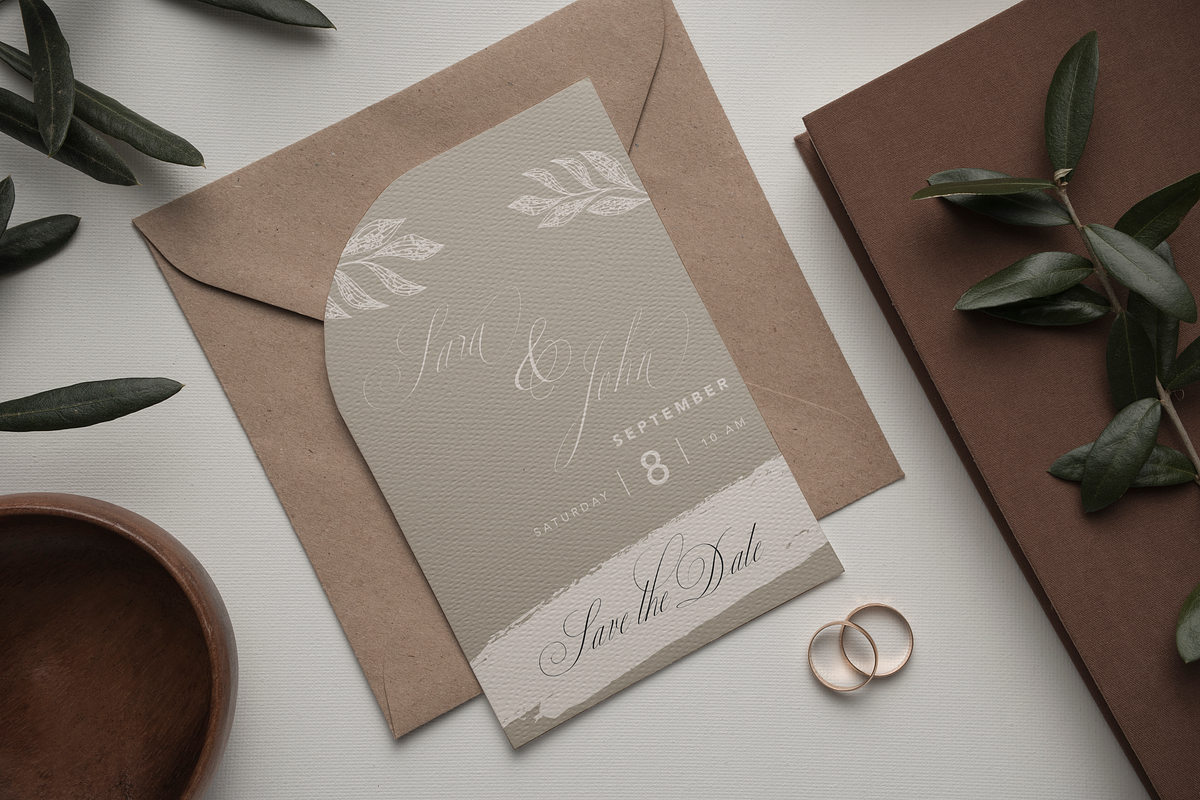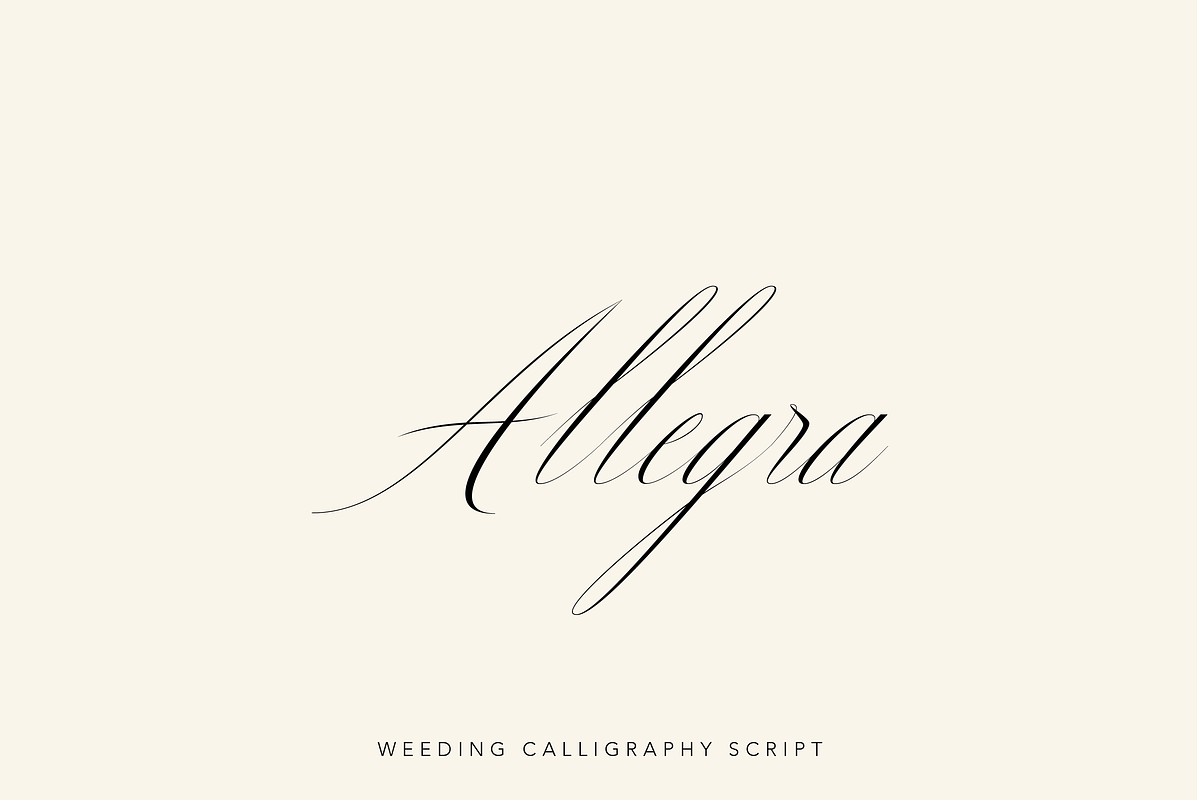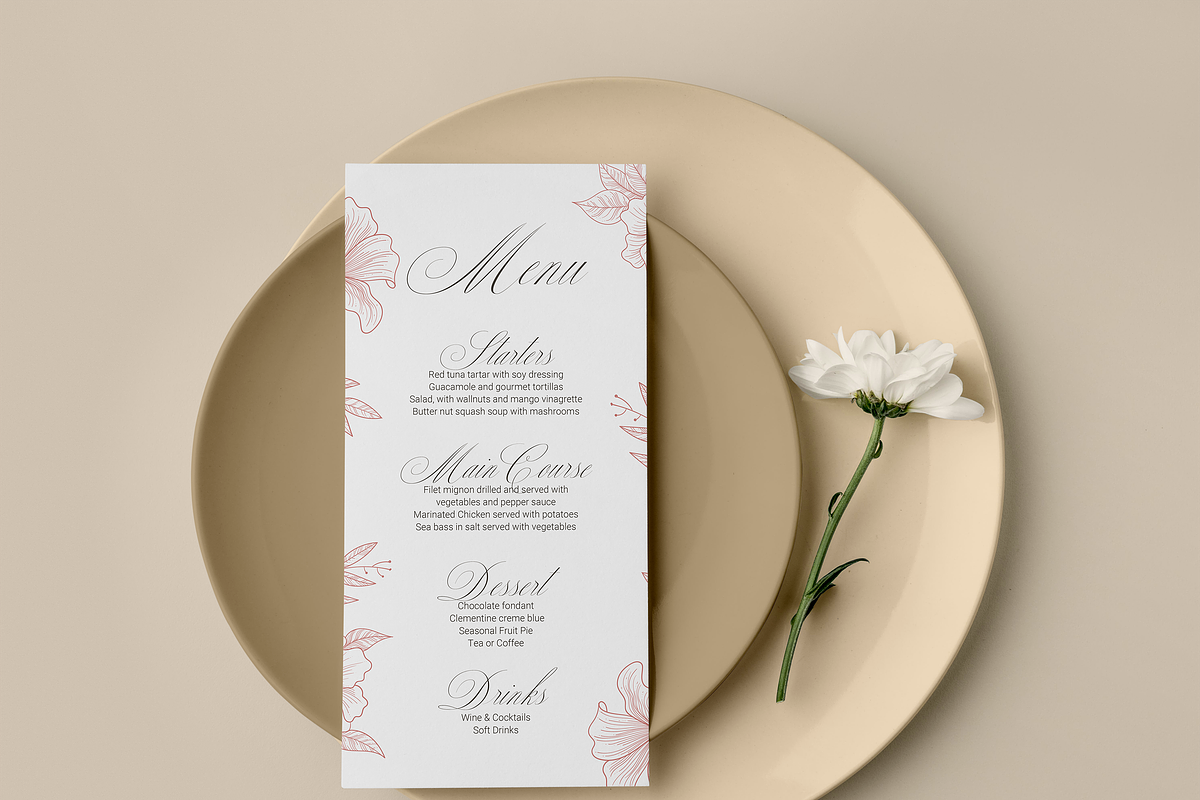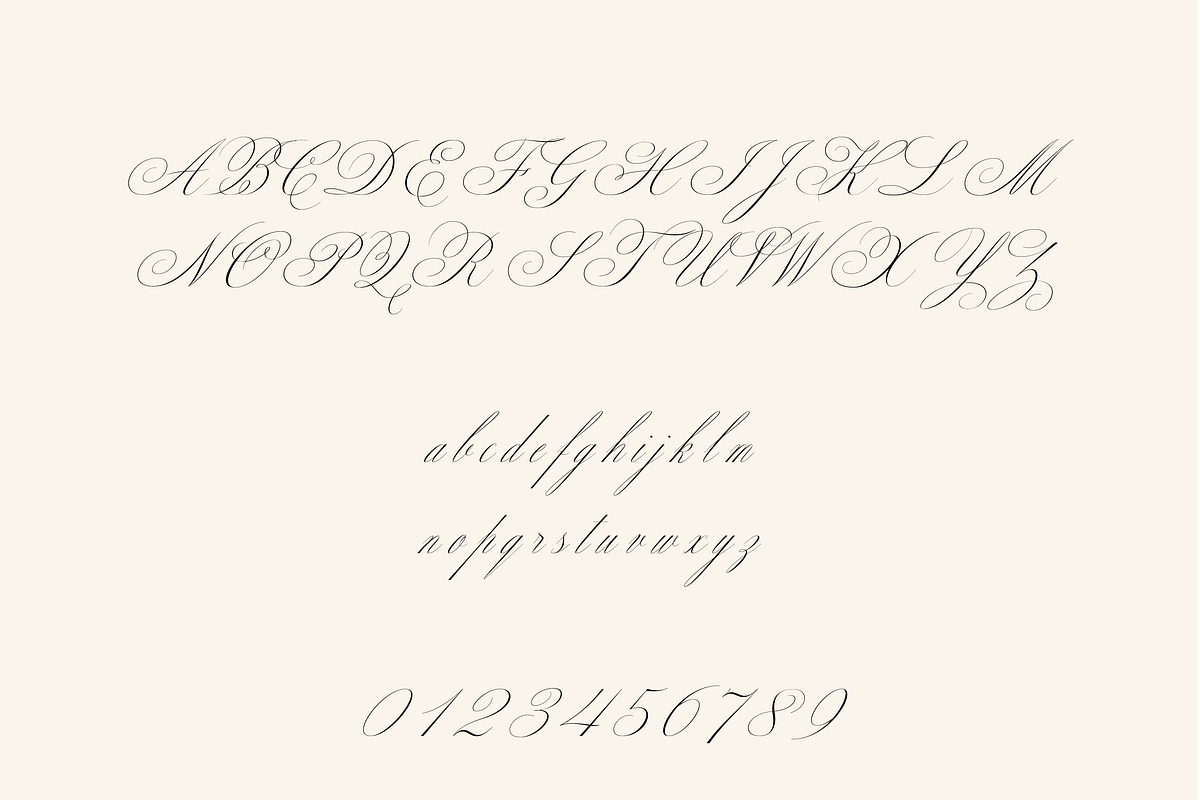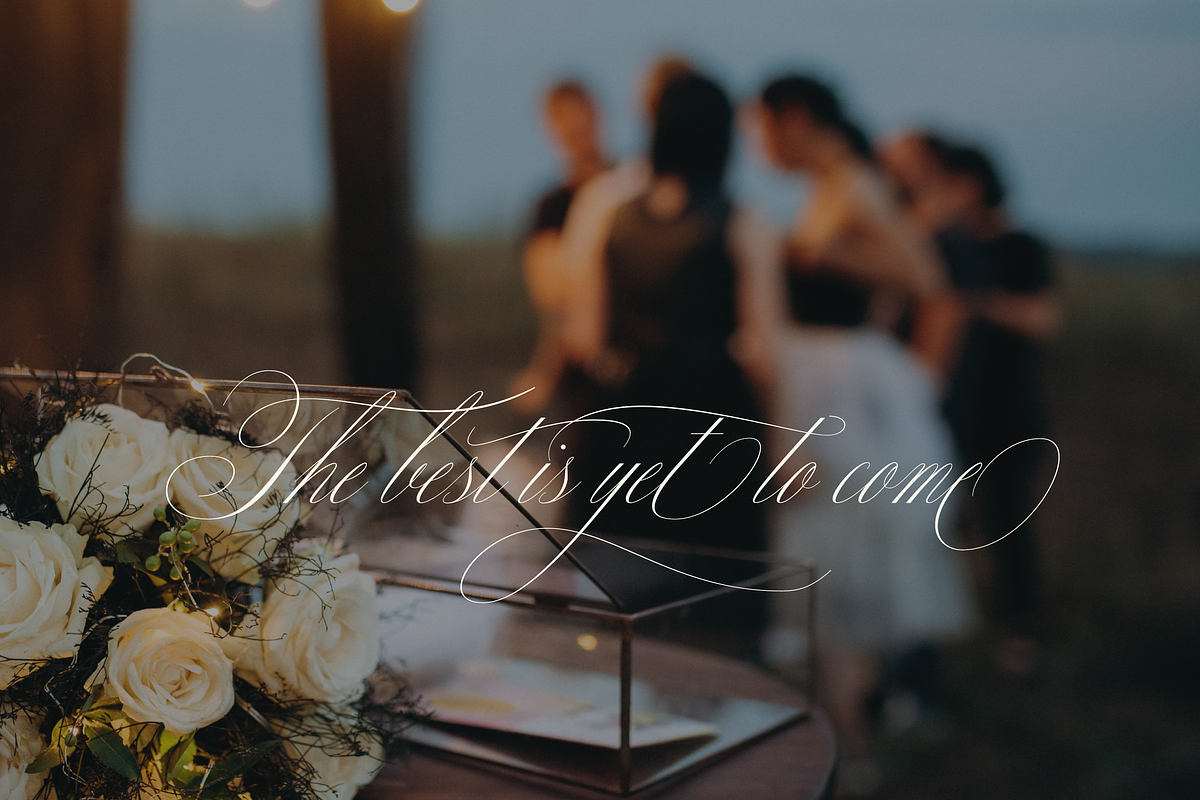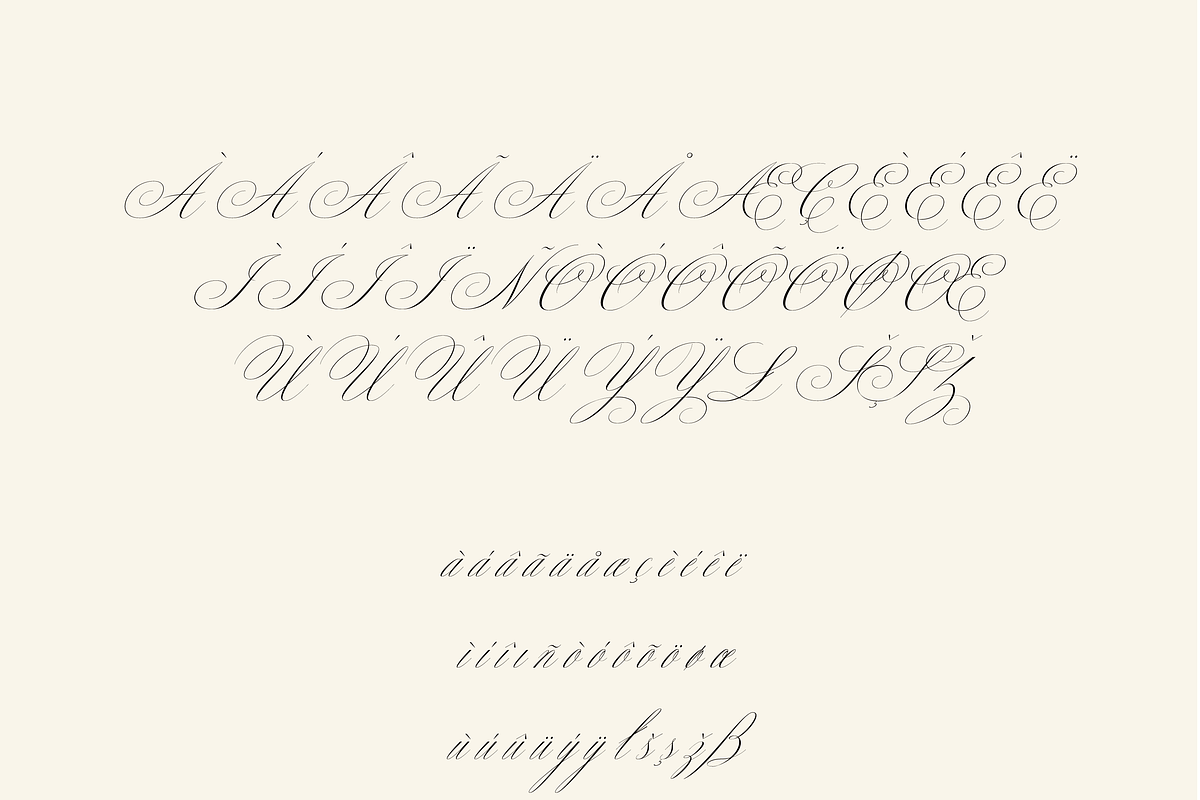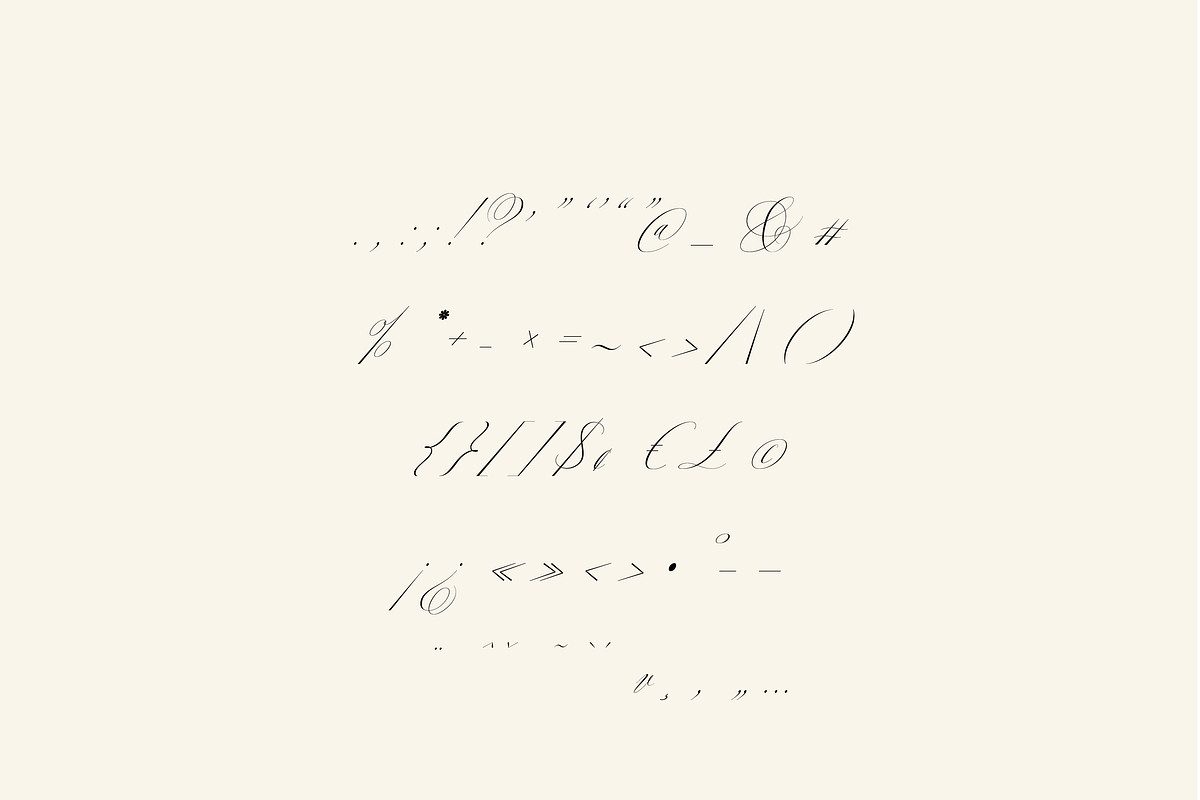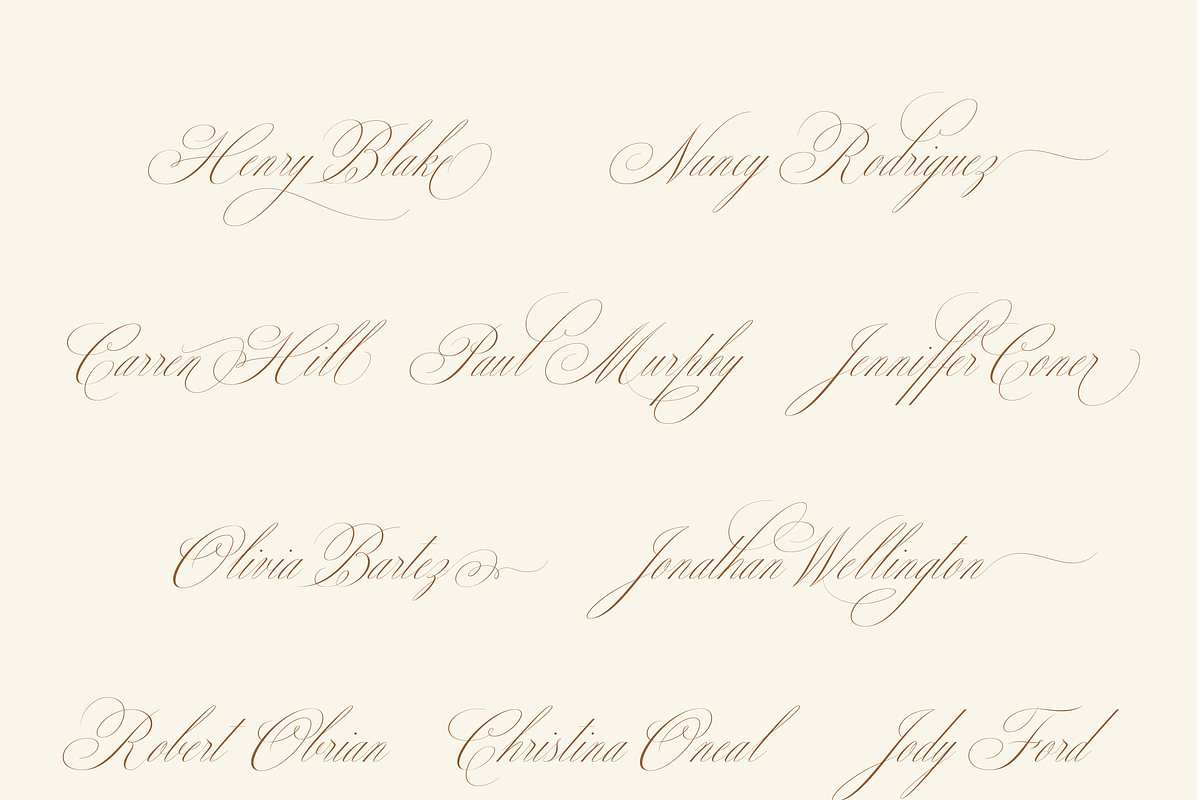
Allegra Script
Allegra Script – Elegant Wedding Calligraphy
Allegra Script is a beautifully designed calligraphy font tailored for wedding invitations and other elegant stationery. Crafted by CreativeFoundryCo, this font features a large set of alternate letterforms, enabling the creation of personalized and visually stunning designs.
• Handcrafted Calligraphy Style – Delivers a romantic and sophisticated aesthetic tailored for weddings and upscale events. • Rich Alternates Collection – Includes numerous alternate characters to help craft unique letter connections. • Seamless App Integration – Easily accessible alternates via OpenType panels in Photoshop, Illustrator, or standard character maps.
If you're designing wedding invites, branding for special events, or elegant stationery, Allegra Script is a graceful and versatile choice that adds a luxurious, personalized touch to any project.